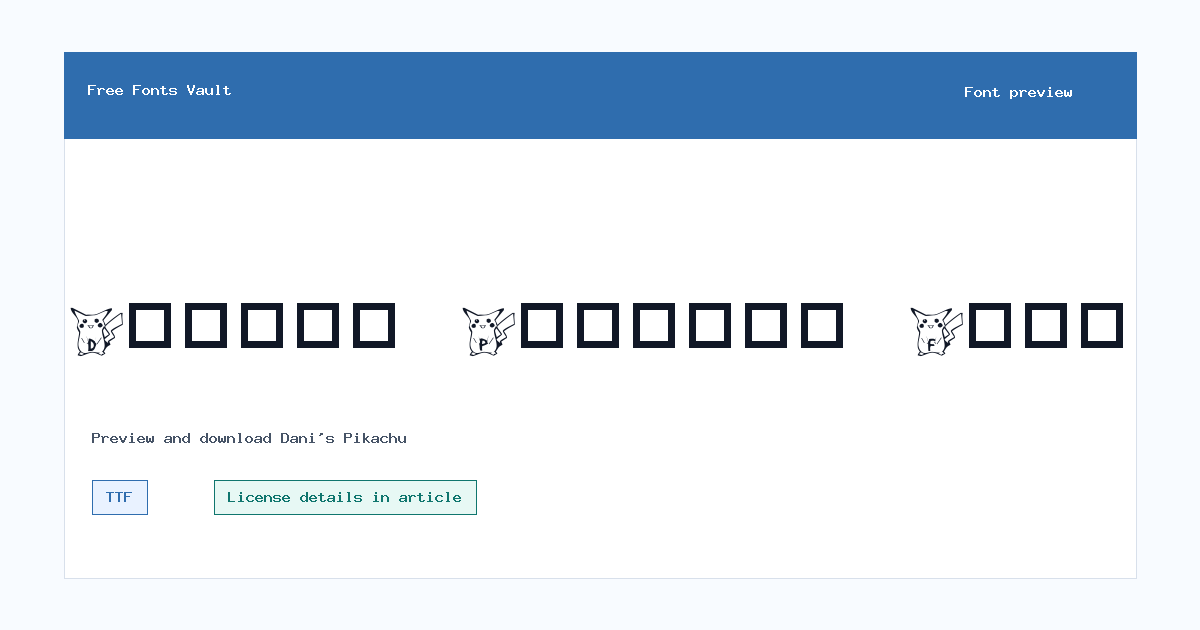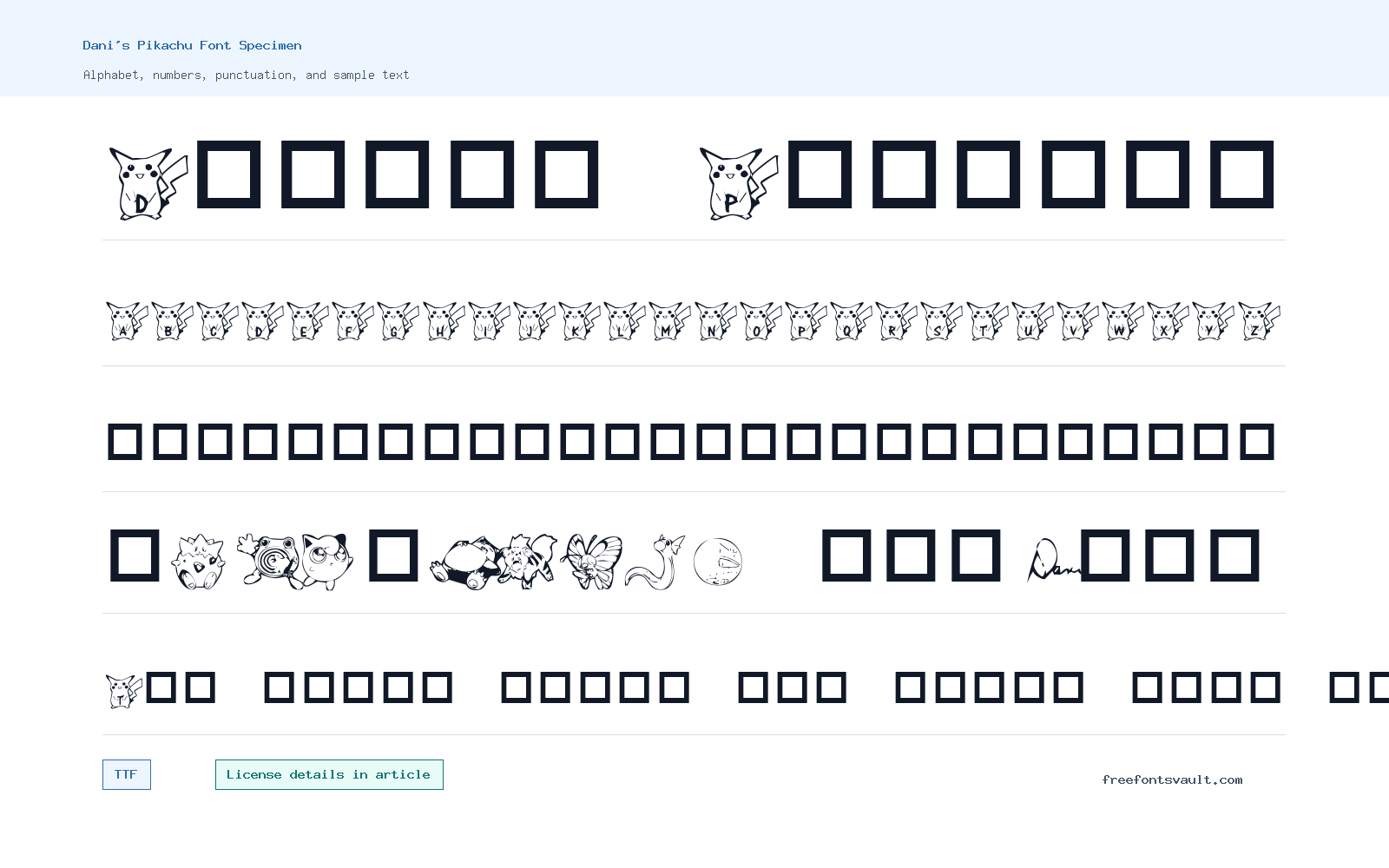
Dani's Pikachu
Dani's Pikachu font preview showing the family name
Dani's Pikachu Font
Dani's Pikachu font specimen showing alphabet, numbers, and sample text
• Designer Dani Foster Herring
Dani’s Pikachu font.
Dani's Pikachu is a playful TTF display font for short, energetic text. It is best used for personal previews, fan-style mockups, labels, and themed graphics where a fun character-inspired tone is useful.
About Dani's Pikachu
Dani's Pikachu is decorative by nature, so it should be treated as a display accent rather than a reading font. The single regular TTF file is best tested with names, short headings, stickers, birthday graphics, classroom-style labels, and personal mockups. Keep the wording brief so the playful shapes can remain readable.
Use the preview to test uppercase, lowercase, numbers, punctuation, and the exact title you plan to use. If the letters feel too busy at smaller sizes, increase the size or pair the font with a plain sans serif for the supporting information. This kind of themed lettering works best when it gets one clear job in the layout.
• Playful decorative display style for short text.
• Designer listed as Dani Foster Herring.
• Not suitable for long paragraphs or small dense UI text.
• Fun headings, labels, stickers, and personal graphics.
• Fan-style mockups and themed title experiments.
• Short display words where readability can be checked in the preview.
• Personal design tests that need a character-inspired mood.
Who designed Dani's Pikachu?
Dani Foster Herring is listed as the designer.
Is it good for body text?
No. Use it for short display text, then choose a simpler font for paragraphs and small captions.